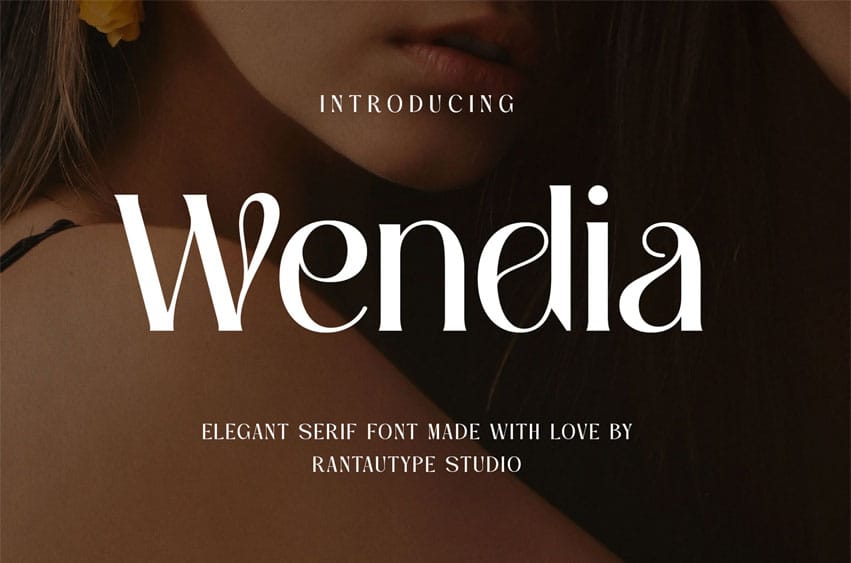
Wendia Font is a classic serif font that embraces a vintage and retro look. Wendia is a perfect choice for any creative endeavor, chic lifestyle design such as logotype, advertisements, watermark on photography, stationery, branding project, display and magazine, invitation, corporate brand, product design, label, business project, and many other projects with an elegant touch.